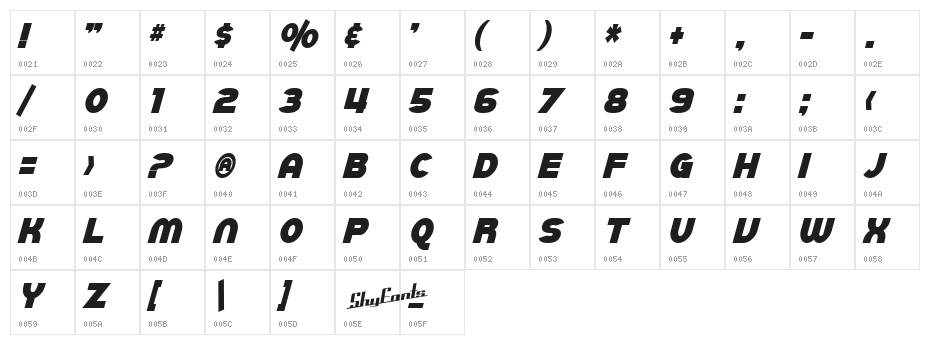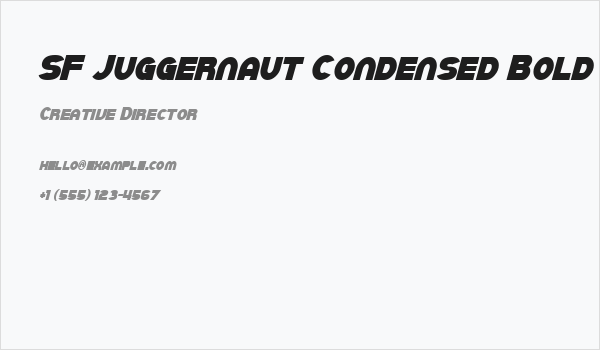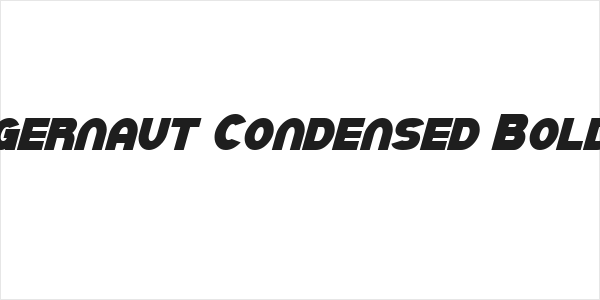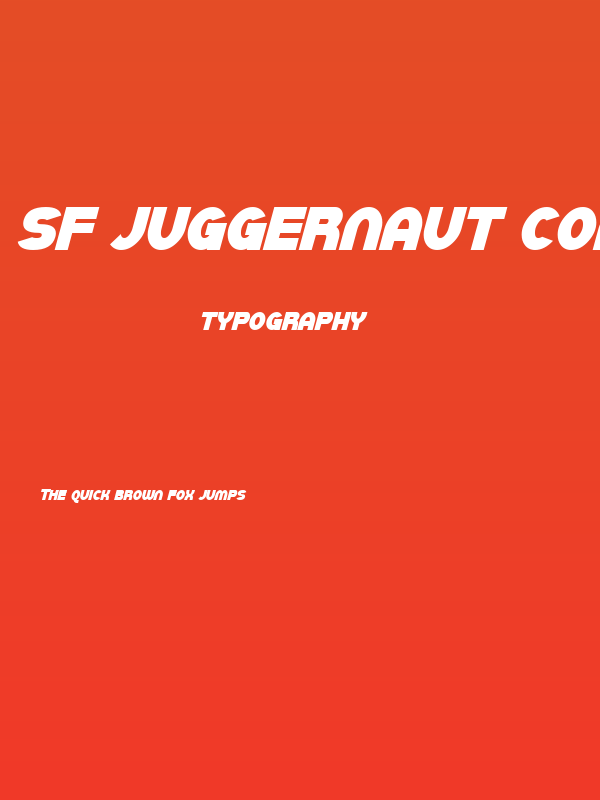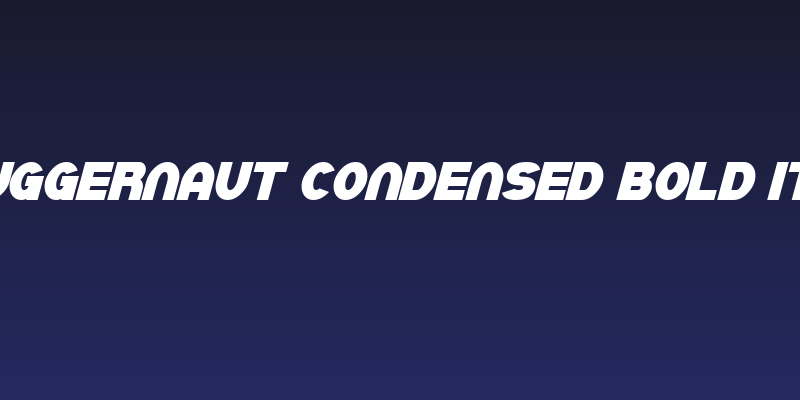
SF Juggernaut Condensed Bold Italic Font
SF Juggernaut Condensed Bold Italic Description
This font exhibits a bold and dynamic style with a condensed form and italic slant, creating a sense of movement and urgency. The characters are robust and impactful, featuring thick strokes that enhance their boldness. The condensed width allows for efficient use of space, making it suitable for headlines and titles where attention is paramount. The italic angle adds a modern and energetic flair, making it ideal for projects that require a contemporary and assertive look. The font maintains consistent stroke thickness, providing a uniform appearance across all characters.
| Proposed Projects | Ideal for headlines, posters, branding, and advertising where a strong and modern impact is needed. |